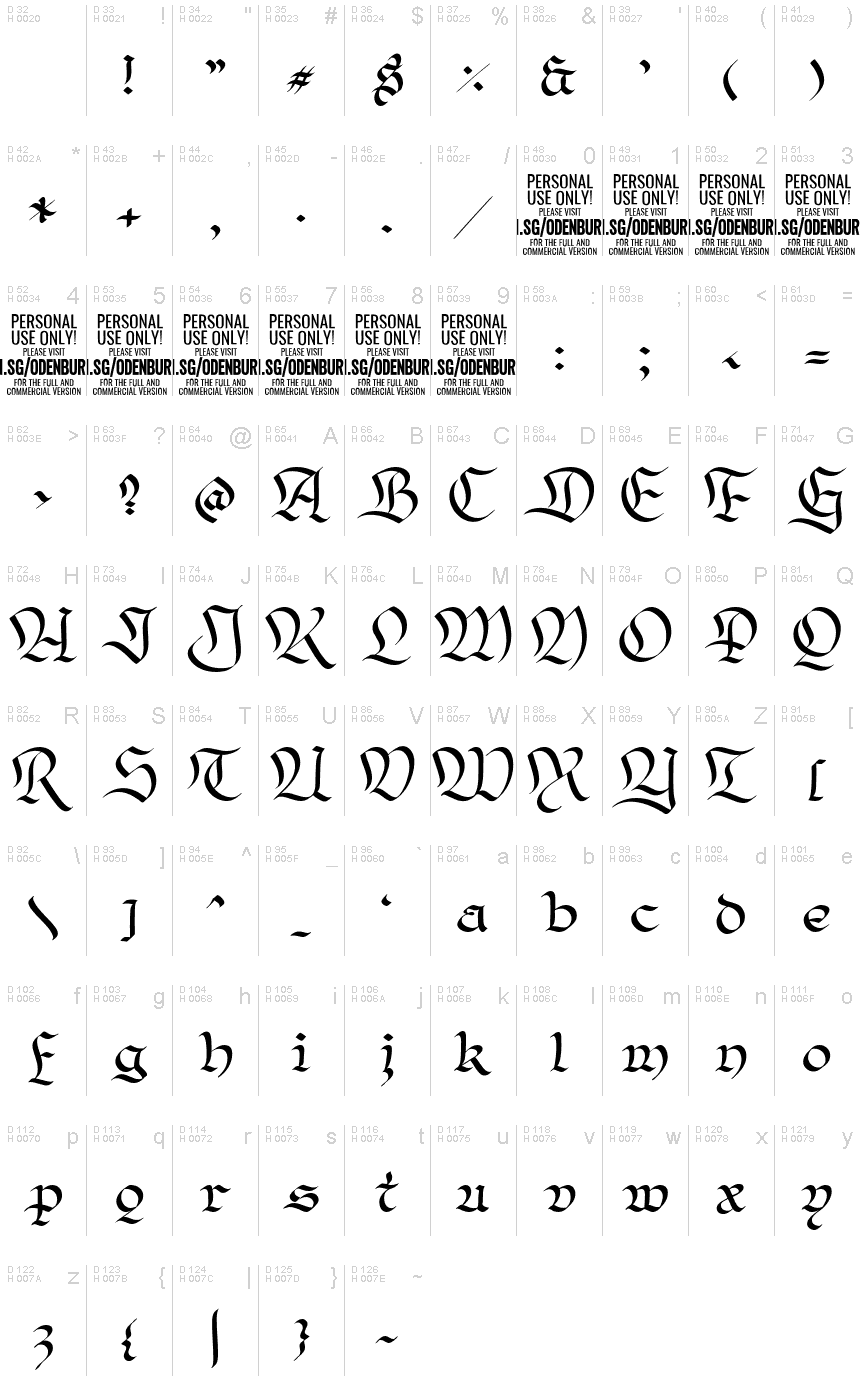
OdenburghPERSONALUSEONLY
Odenburgh, designed by Mans Greback, is a captivating gothic font that exudes an air of mystique. With its semi-light weight and semi-expanded width, this font strikes the perfect balance between elegance and readability. Its intricate detailing makes it suitable for a wide range of projects, from vintage-inspired book covers to enchanting wedding invitations. Odenburgh's distinct style adds a touch of sophistication to logos, posters, and branding materials. Embrace the allure of this font and let your creativity flow in crafting visually stunning designs that leave a lasting impression.